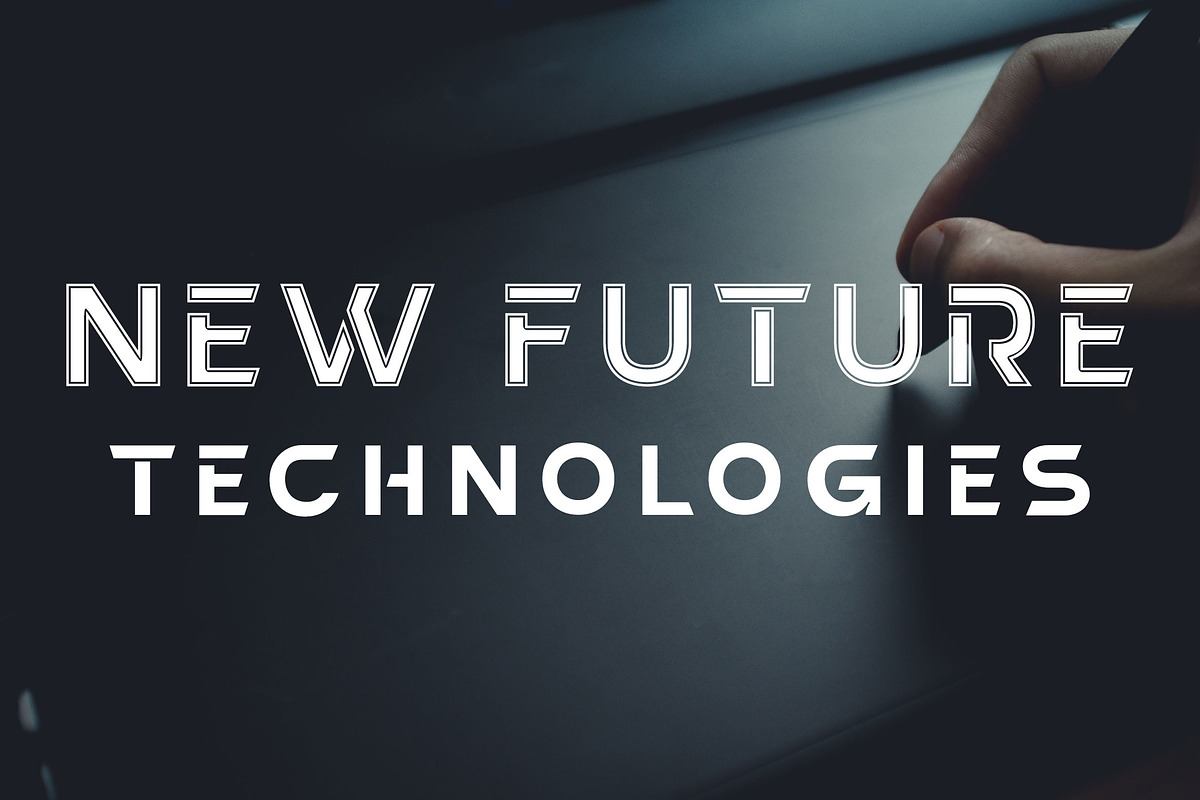
New Future Technologies Modern Font Free Download is a sleek, forward-thinking typeface crafted for the digital age. With its clean lines, geometric structure, and futuristic aesthetic, this font is ideal for tech startups, app interfaces, sci-fi posters, innovation-focused branding, and cutting-edge product design.
Its minimalist yet bold presence makes it perfect for headlines, logos, and modern layouts that require clarity and impact. Whether you're designing for AI, blockchain, virtual reality, or space-themed projects, New Future delivers a high-tech edge with a professional finish.
This font thrives in both digital and print environments, making it a versatile tool for visionary creatives.